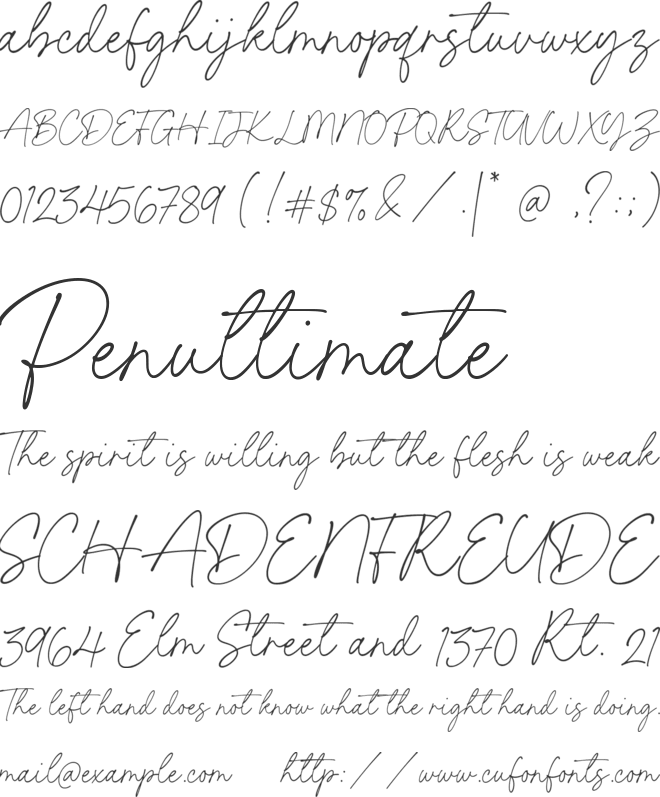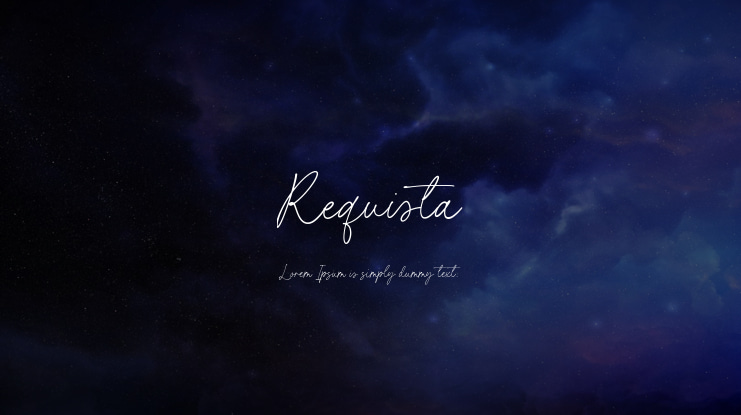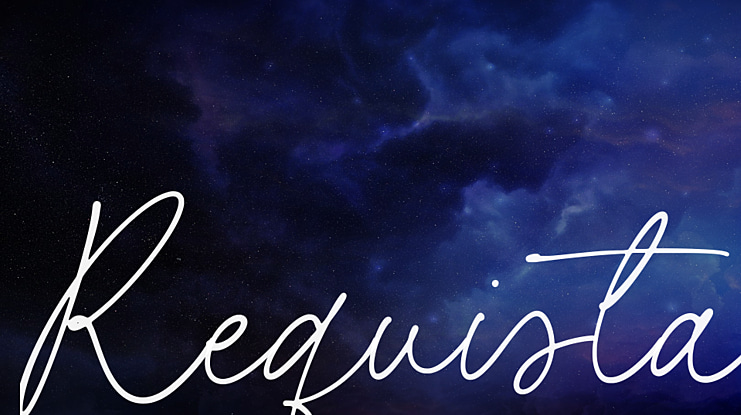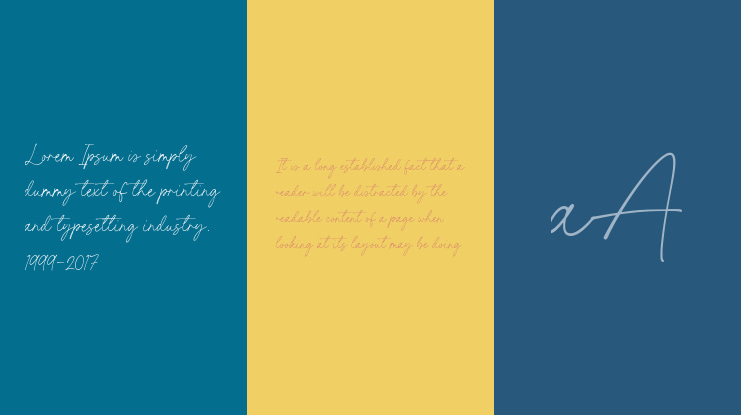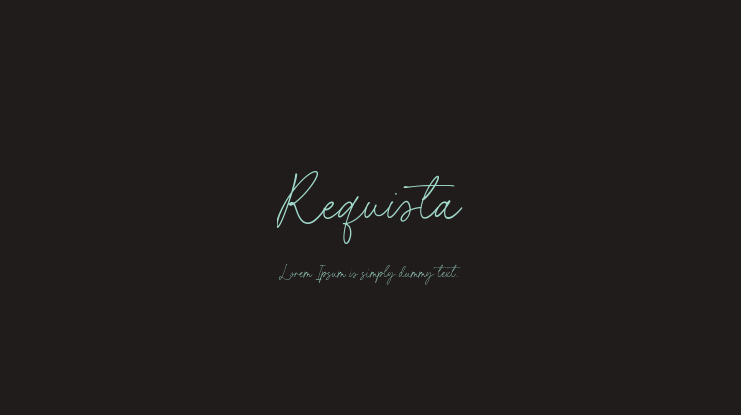
Proudly Present Requista
Requista is a Handwritten script font that is modern and fresh, and will bring a warm and inviting feel to your business. Take advantage of the fonts and experience the magic for yourself.
Requista is perfect for product packaging, branding project, megeenazine, social media, wedding, or just used to express words above the background.
-Full Set of standard alphabet and punctuation